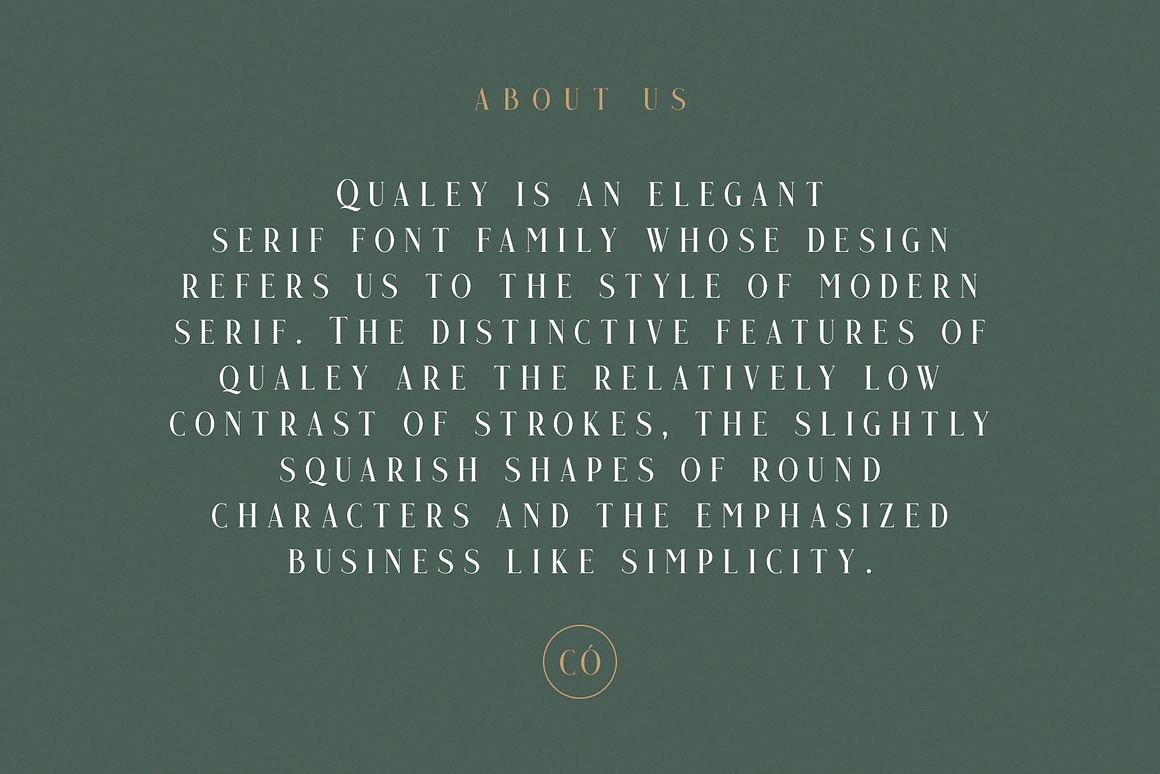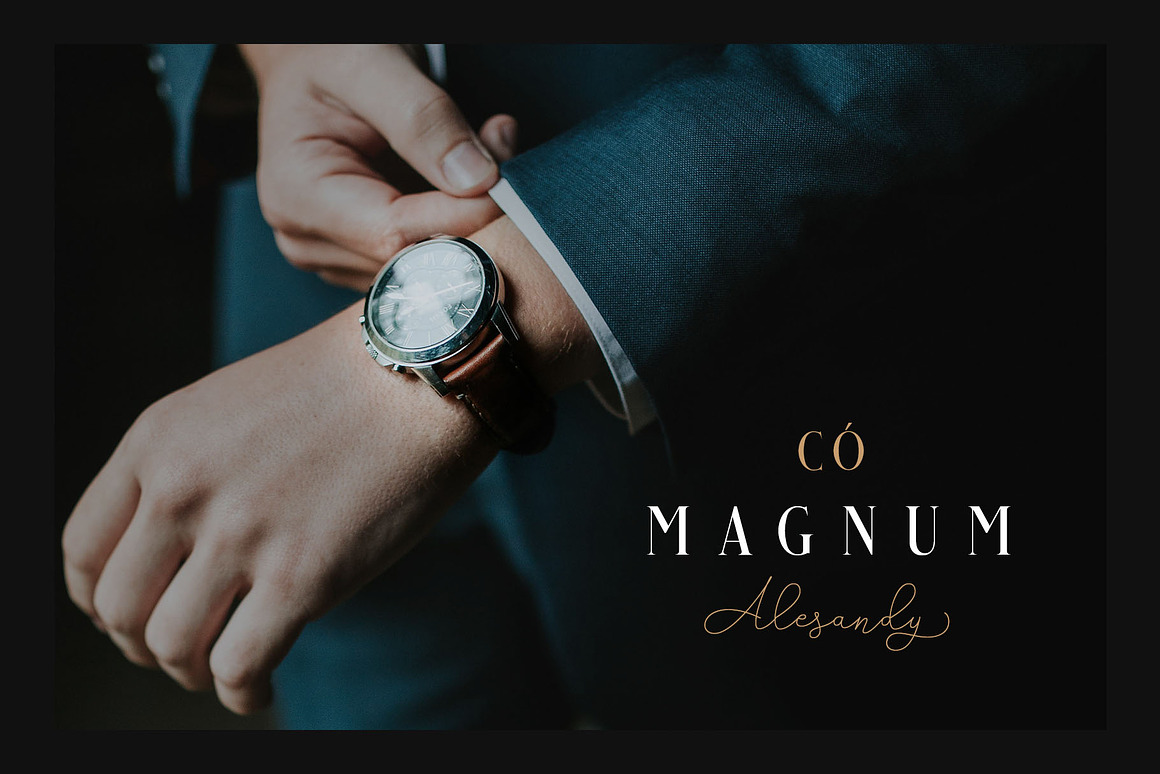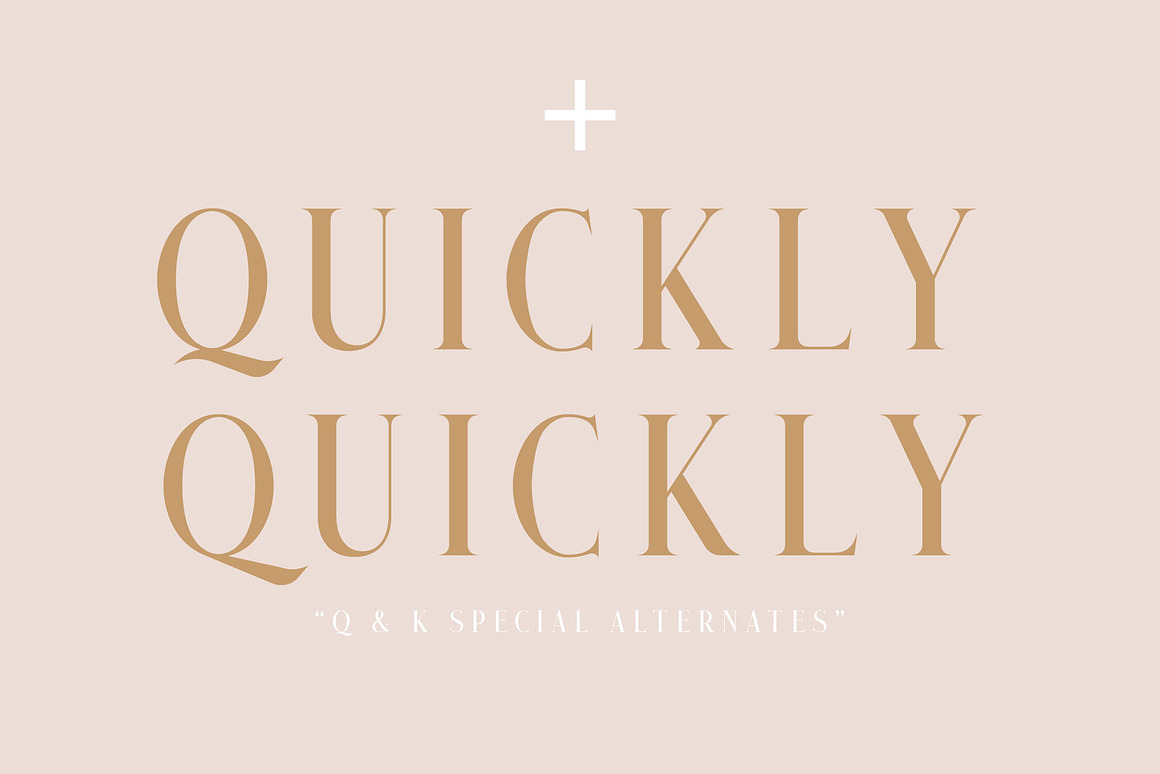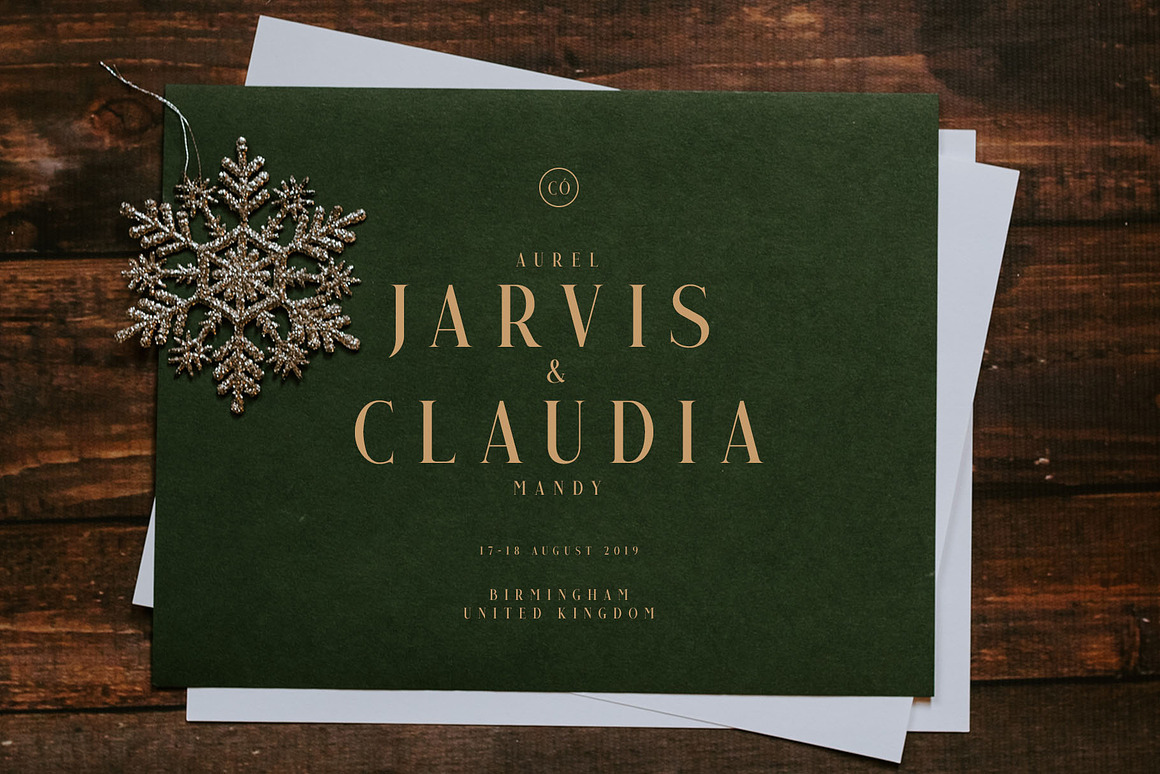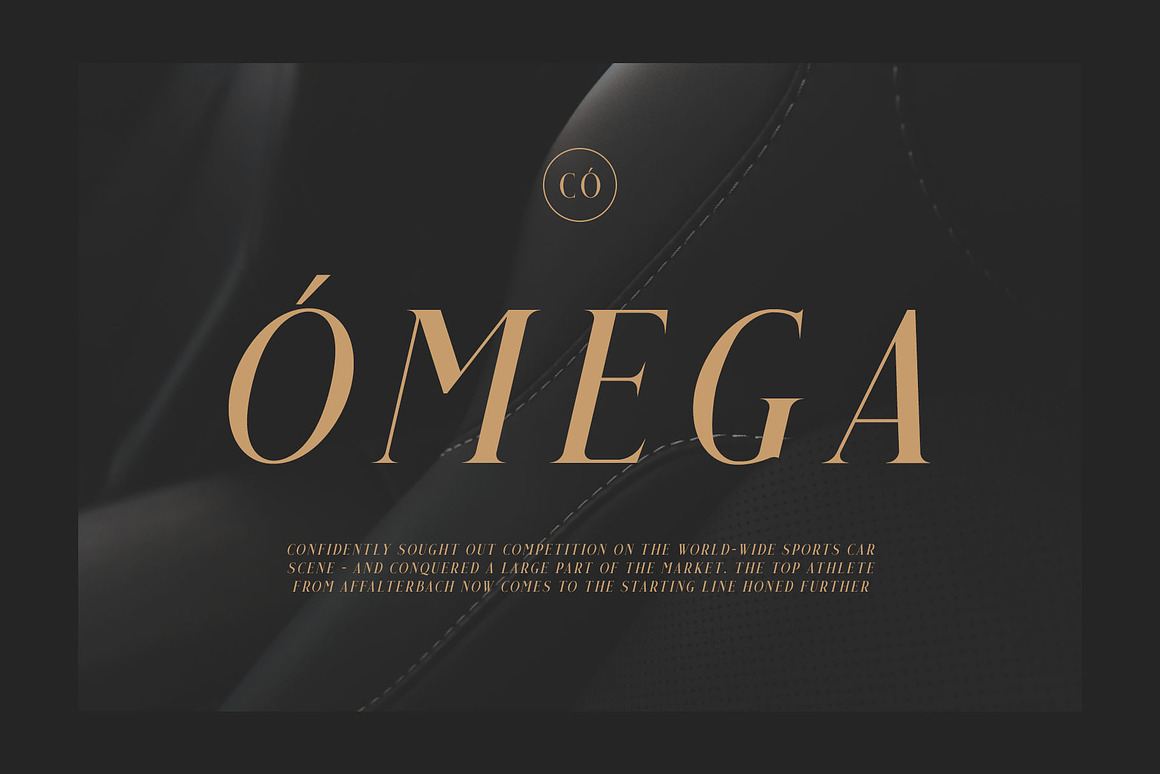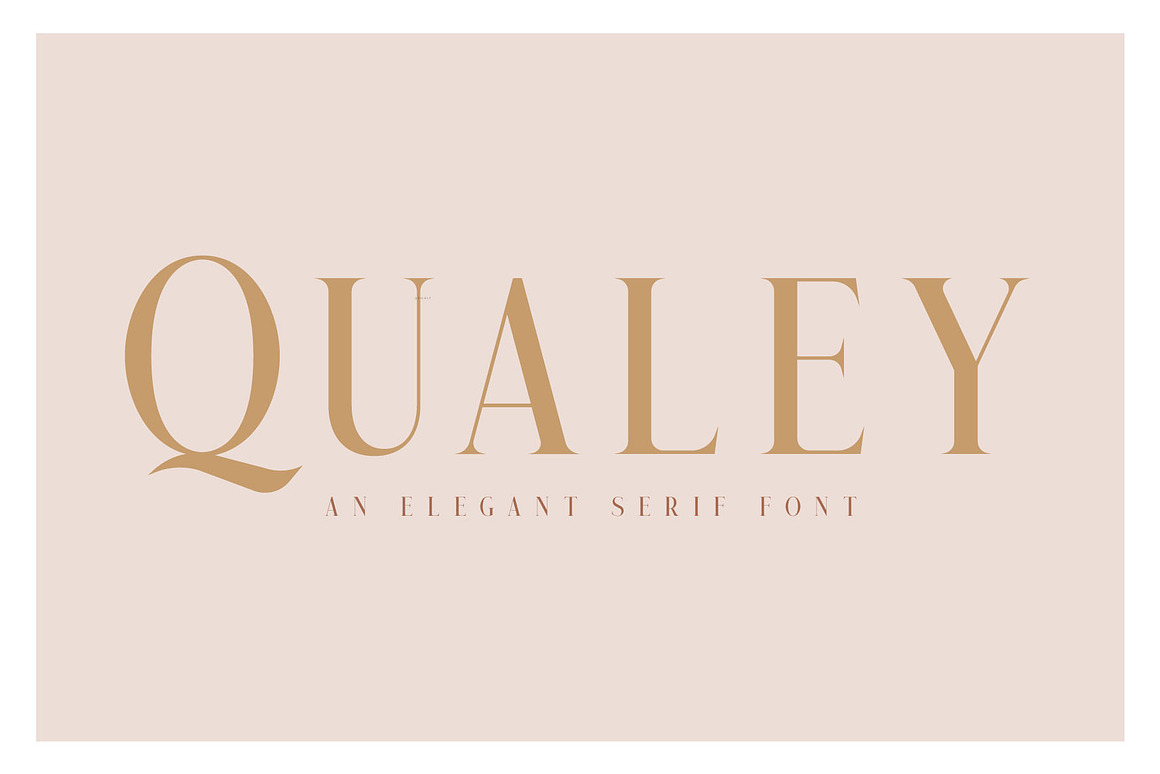
Qualey - Elegant Serif Font
Qualey - Elegant Serif Font is a modern serif font family whose design refers us to the style of modern serif Font. The distinctive features of Qualey - Elegant Serif Font are the relatively high contrast of strokes, the slightly squarish shapes of sharp characters and the emphasized business like simplicity.